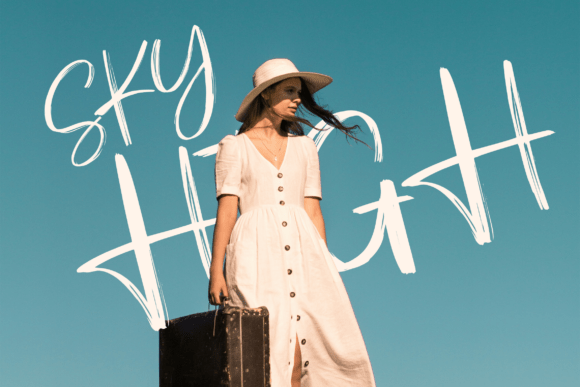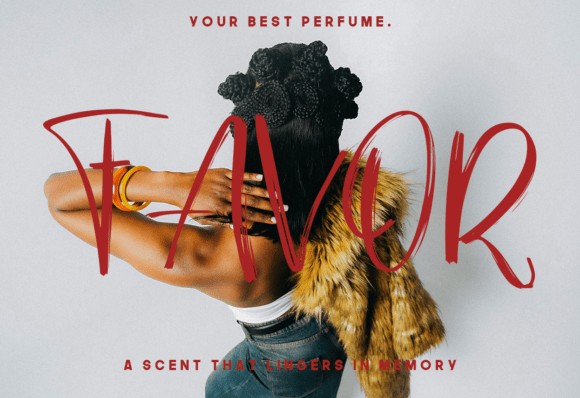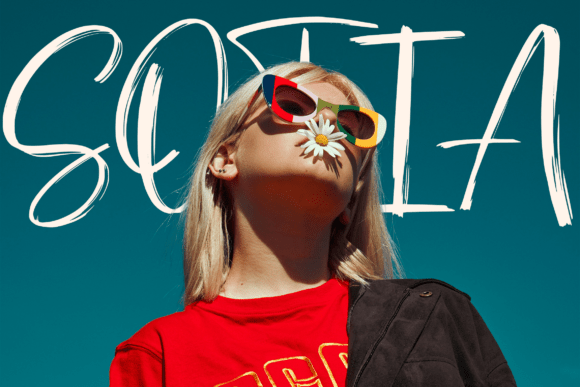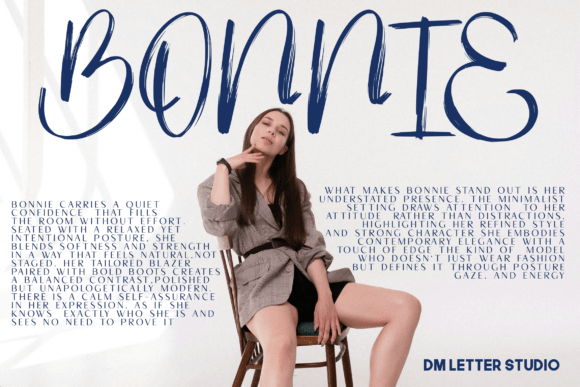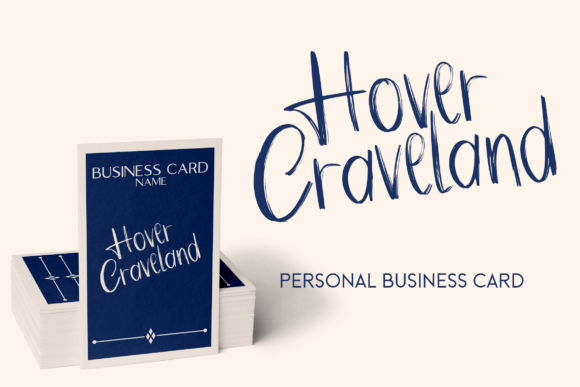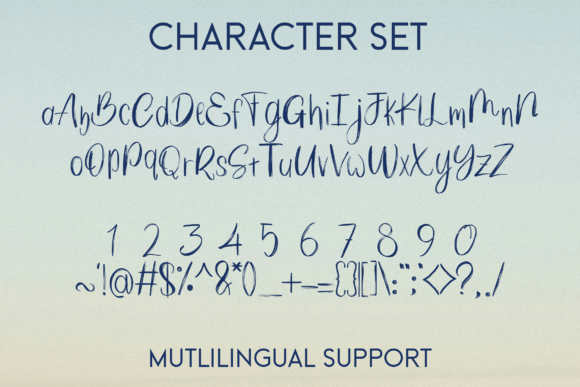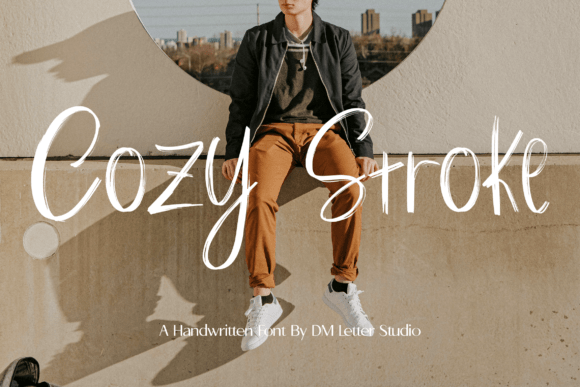
Meet Cozy Stroke: The Handwritten Font for Calm and Friendly Designs
Are you looking for a font that exudes warmth and coziness? Look no further than Cozy Stroke, a beautiful handwritten font designed to bring a sense of calm and friendliness to your designs. In this article, we’ll dive into the world of Cozy Stroke and explore its features, uses, and benefits for designers and crafters.
What is Cozy Stroke?
Cozy Stroke is a warm and inviting handwritten font, carefully crafted to evoke a sense of comfort and relaxation. Its soft, flowing lines and gentle curves make it perfect for designs that require a personal touch. Whether you’re creating journals, quotes, planners, or social media posts, Cozy Stroke is the ideal choice for adding a cozy feel to your work.
Features of Cozy Stroke
So, what makes Cozy Stroke so special? Here are some of its key features:
- Handwritten style: Cozy Stroke is a genuine handwritten font, giving it a unique and personal feel.
- Warm and inviting: The font’s soft lines and curves create a warm and welcoming atmosphere, perfect for cozy-themed designs.
- Highly legible: Cozy Stroke is easy to read, making it suitable for body text and headings.
- Versatile: This font can be used for a wide range of design projects, from digital to print.
Uses of Cozy Stroke
Cozy Stroke is an incredibly versatile font, and its uses are endless. Here are some ideas to get you started:
- Journals and planners: Add a personal touch to your journals and planners with Cozy Stroke’s warm and inviting font.
- Quotes and typography: Use Cozy Stroke to create inspiring quotes, posters, and social media graphics.
- Café branding and packaging: Give your café or bakery brand a cozy feel with Cozy Stroke’s friendly font.
- Product labels and packaging: Add a touch of warmth to your product labels and packaging with Cozy Stroke.
- Instagram posts and stories: Use Cozy Stroke to create engaging and cozy-themed social media content.
- Cozy-themed merch: Create adorable merchandise, such as tote bags, mugs, and t-shirts, with Cozy Stroke’s charming font.
Cozy Stroke offers numerous benefits for designers and crafters, including:
- Time-saving: With Cozy Stroke, you can create stunning designs in no time, thanks to its highly legible and versatile nature.
- Unique and creative: Cozy Stroke’s handwritten style ensures that your designs stand out from the crowd.
Tips for Using Cozy Stroke
To get the most out of Cozy Stroke, here are some expert tips:
- Pair with complementary fonts: Combine Cozy Stroke with clean and modern fonts for a striking contrast.
- Experiment with colors: Cozy Stroke looks great with pastel colors, earth tones, and rich jewel tones.
- Play with textures: Add a tactile feel to your designs by incorporating textures and patterns.
- Keep it simple: Don’t over-accessorize – let Cozy Stroke’s simplicity shine through.